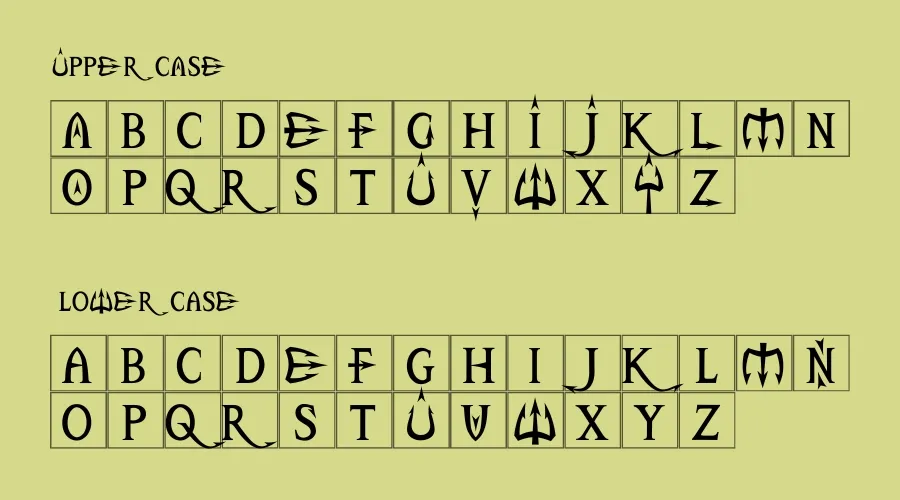
About Mythology Font
UICREATIVE created Mythology Font which is a serif text style. Whether you are a graphical creator or web designer, this font is an adjustable font for a diversity of ventures.
It features eye-catching symbols that create it suitable for captions and symbols. Nevertheless, if you would like to increase your knowledge, you may download the free version of this font from our website. You can easily compare this font with the graphik font.
As the main idea behind creating this typeface is to provide unique but functional designs that would be ideal choices among different fonts, the designer wanted to create a typeface that would provide unique yet functional designs.